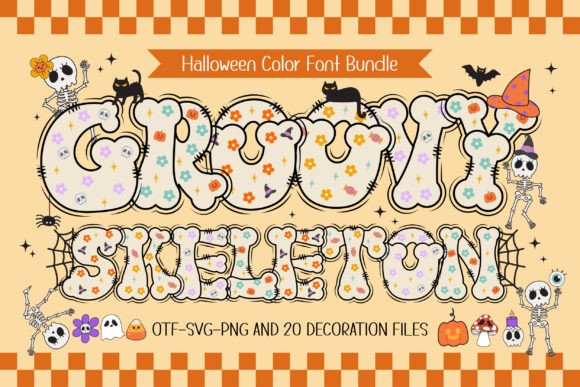
Groovy Skeleton Font: The Ultimate Halloween Display Font
Are you looking for a unique and playful font to add a spooky touch to your Halloween designs? Look no further than the Groovy Skeleton Font, a specially designed display font for the spooky season. This font is perfect for creating eye-catching Halloween posters, custom DIY projects, personalized names, sublimations, and a variety of other creative works.
What Makes Groovy Skeleton Font So Special?
The Groovy Skeleton Font is a one-of-a-kind font that blends skeleton shapes with cute Halloween patterns, adding a playful yet eerie touch to your designs. The font features 4 distinct font styles, allowing you to experiment with different looks and feels to suit your design needs.
- 4 Distinct Font Styles: The Groovy Skeleton Font comes with 4 unique font styles, each with its own character and charm. Whether you’re looking for a bold and spooky font or a more playful and cute font, this font has got you covered.
- 20 Bonus Matching Clip Arts: In addition to the font styles, you’ll also receive 20 bonus matching clip arts that you can use to add an extra touch of personality to your designs.
Perfect for a Variety of Design Projects
The Groovy Skeleton Font is perfect for a wide range of design projects, including:
- Halloween Posters: Create eye-catching Halloween posters that will grab the attention of your audience.
- Custom DIY Halloween Projects: Add a personal touch to your DIY Halloween projects, such as pumpkin carvings, Halloween decorations, and more.
- Personalized Names: Use the Groovy Skeleton Font to create personalized names for Halloween-themed gifts, such as trick-or-treat bags and costumes.
- Sublimations: Create unique sublimation designs for Halloween-themed products, such as t-shirts, mugs, and more.
Benefits of Using Groovy Skeleton Font
There are many benefits to using the Groovy Skeleton Font for your Halloween designs. Here are just a few:
- Unique and Playful Design: The Groovy Skeleton Font features a unique and playful design that will add a touch of personality to your Halloween designs.
- Versatile: The font is versatile and can be used for a wide range of design projects, from Halloween posters to custom DIY projects.
Tips and Tricks for Using Groovy Skeleton Font
Here are a few tips and tricks for using the Groovy Skeleton Font:
- Experiment with Different Font Styles: Don’t be afraid to experiment with different font styles to find the one that works best for your design.
- Use Clip Arts to Add Personality: Use the bonus clip arts to add an extra touch of personality to your designs.
- Combine with Other Fonts: Combine the Groovy Skeleton Font with other fonts to create a unique and eye-catching design.
| Font Name | Groovy Skeleton Font |
| Author | Issie_Studio |
The Groovy Skeleton Font is a unique and playful display font that’s perfect for adding a spooky touch to your Halloween designs. With its 4 distinct font styles and 20 bonus matching clip arts, this font is sure to become a go-to for designers looking to create eye-catching Halloween designs. Whether you’re creating Halloween posters, custom DIY projects, or personalized names, the Groovy Skeleton Font is the perfect choice.